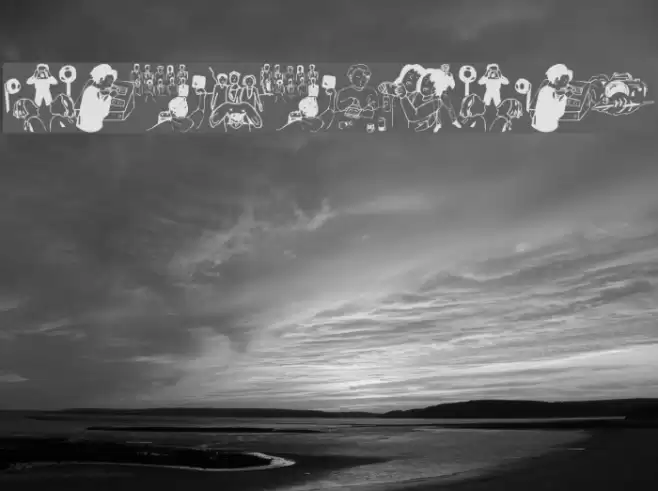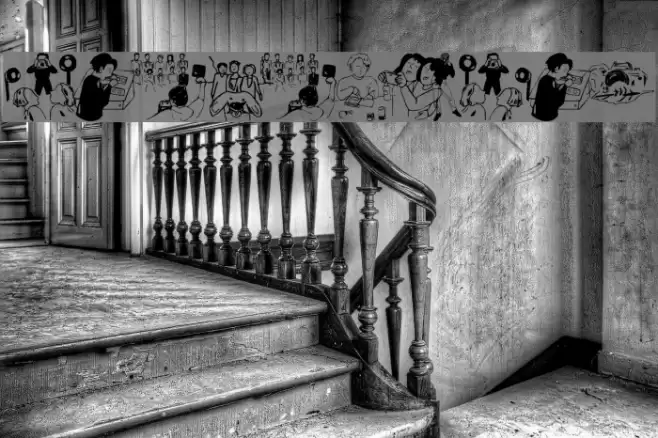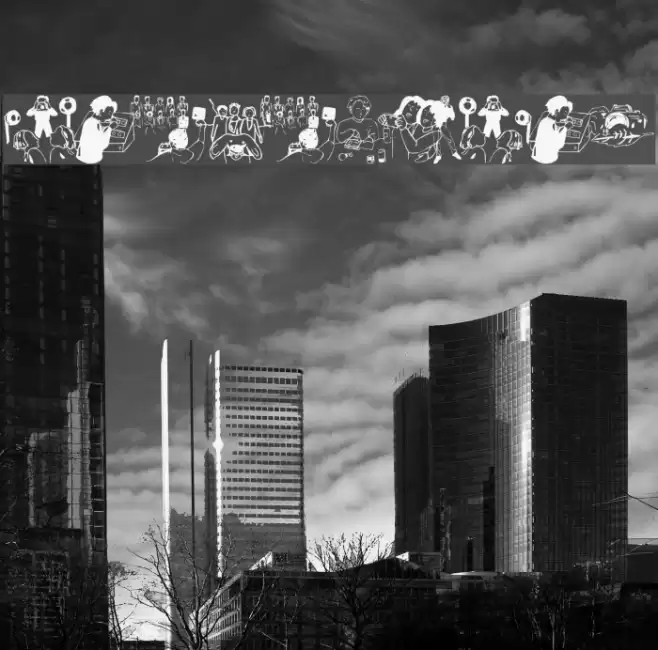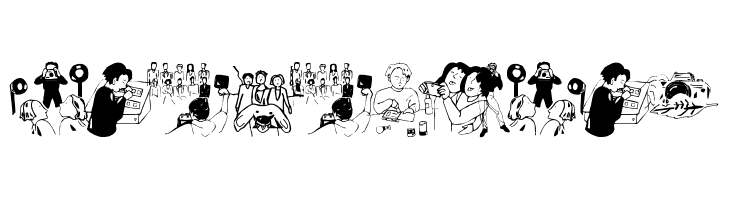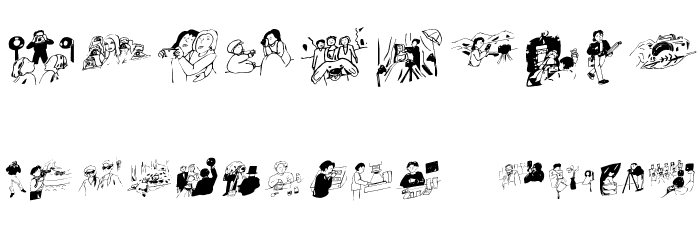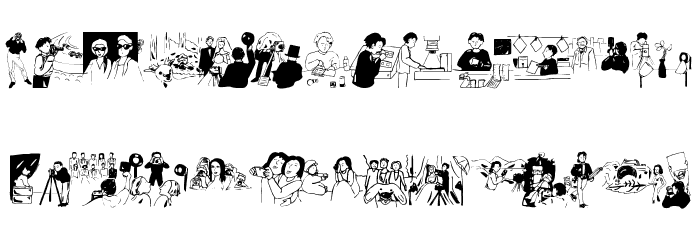
Photography Font
Photography Description
A decorative display font composed of playful, hand-drawn illustrations representing various photography-related scenes and activities in place of traditional letterforms and symbols.
Whimsical illustrated font themed around photography from Uncategorized fonts.
- Proposed Projects: Event posters, creative branding for photography studios, educational materials, children's books, themed invitations.
- Overall Style: Decorative, Playful, Thematic
- Use Case: Logos, Headlines, Posters, Themed graphics